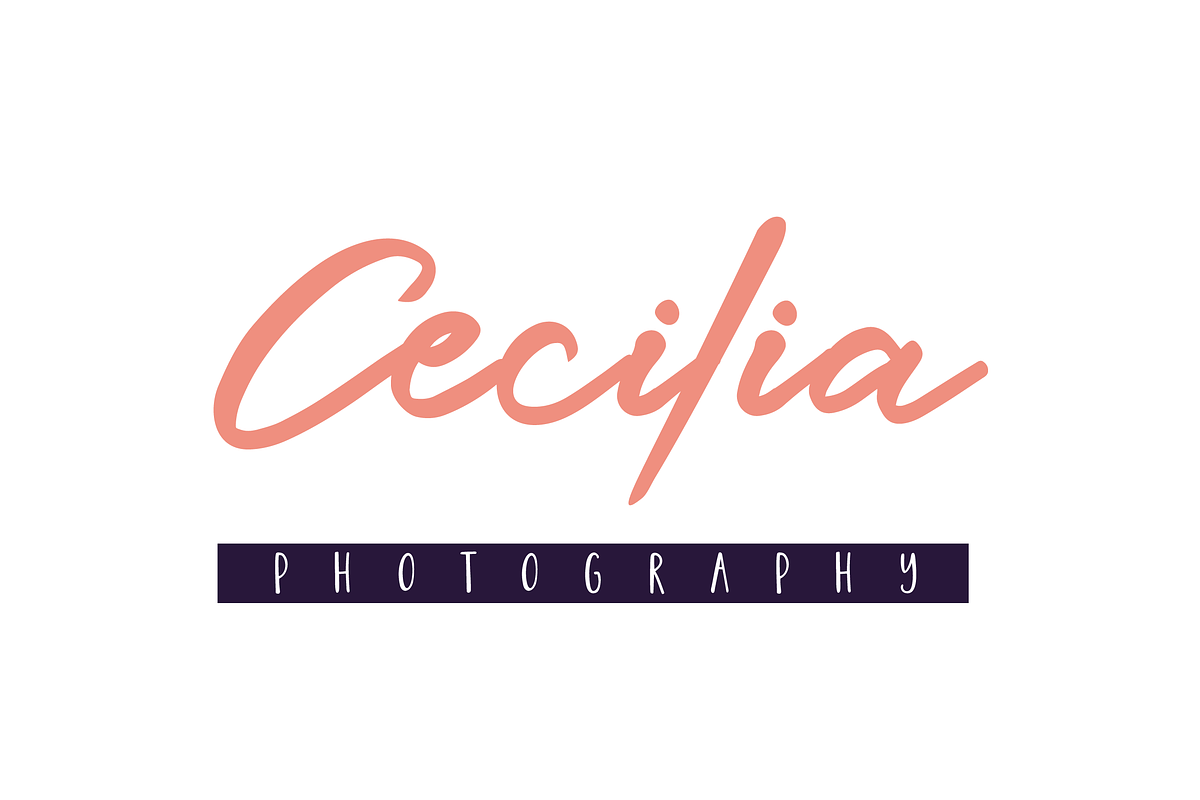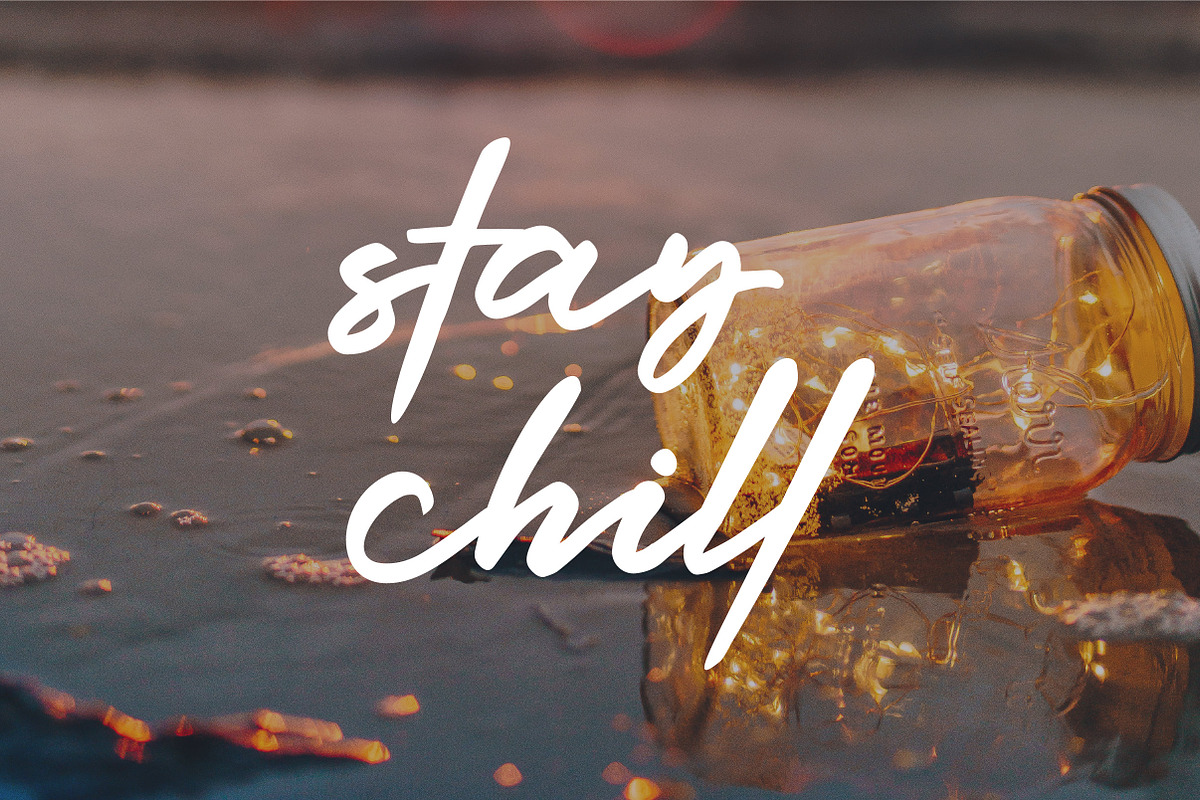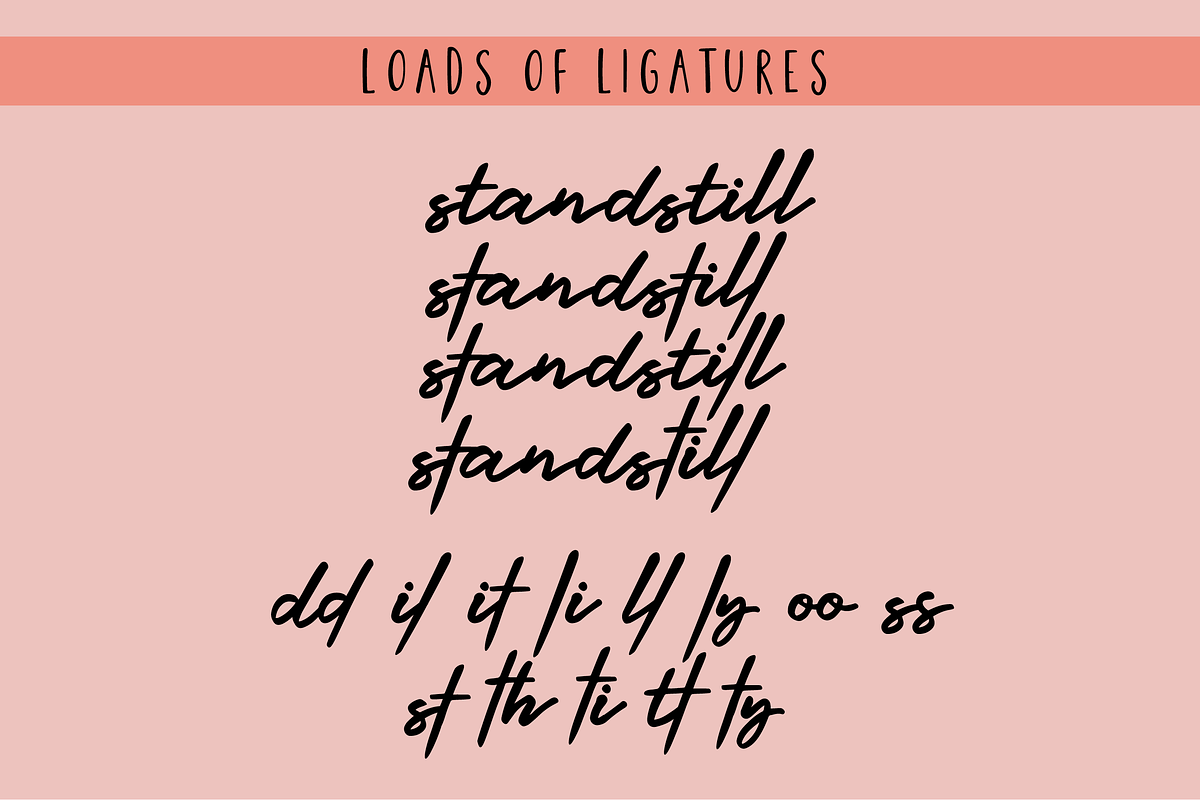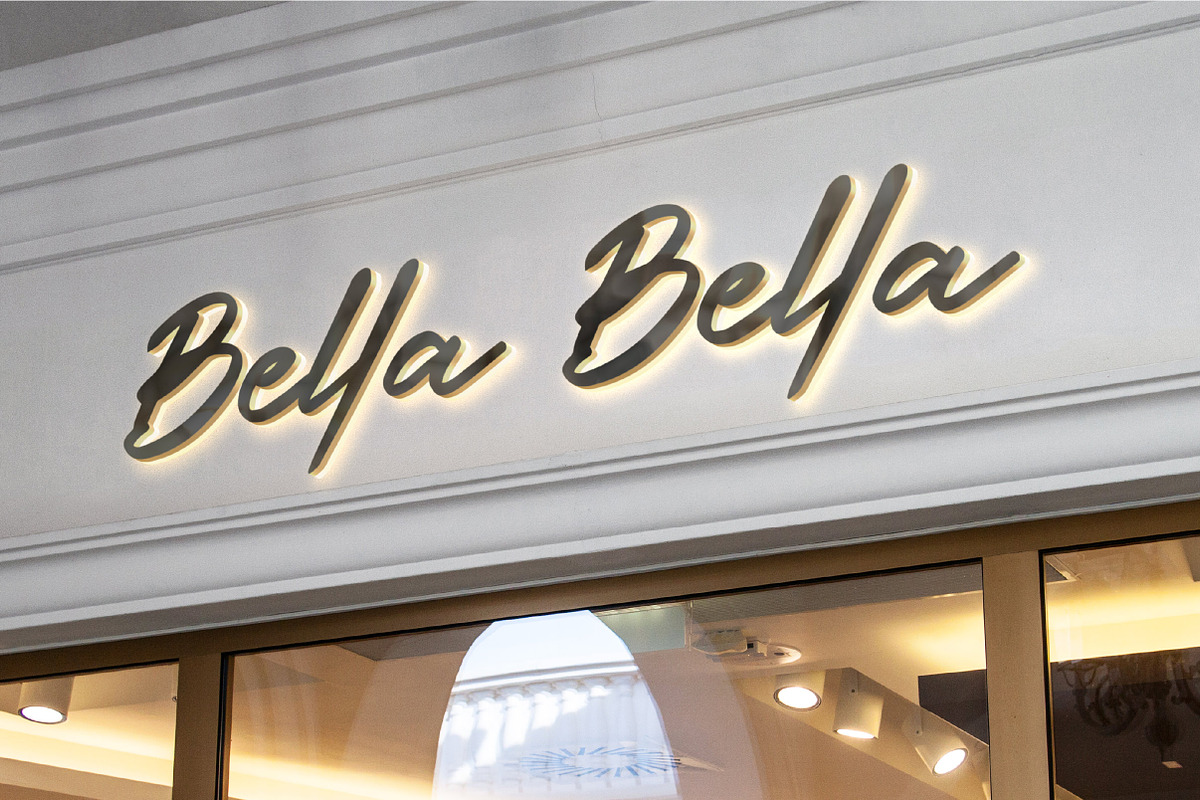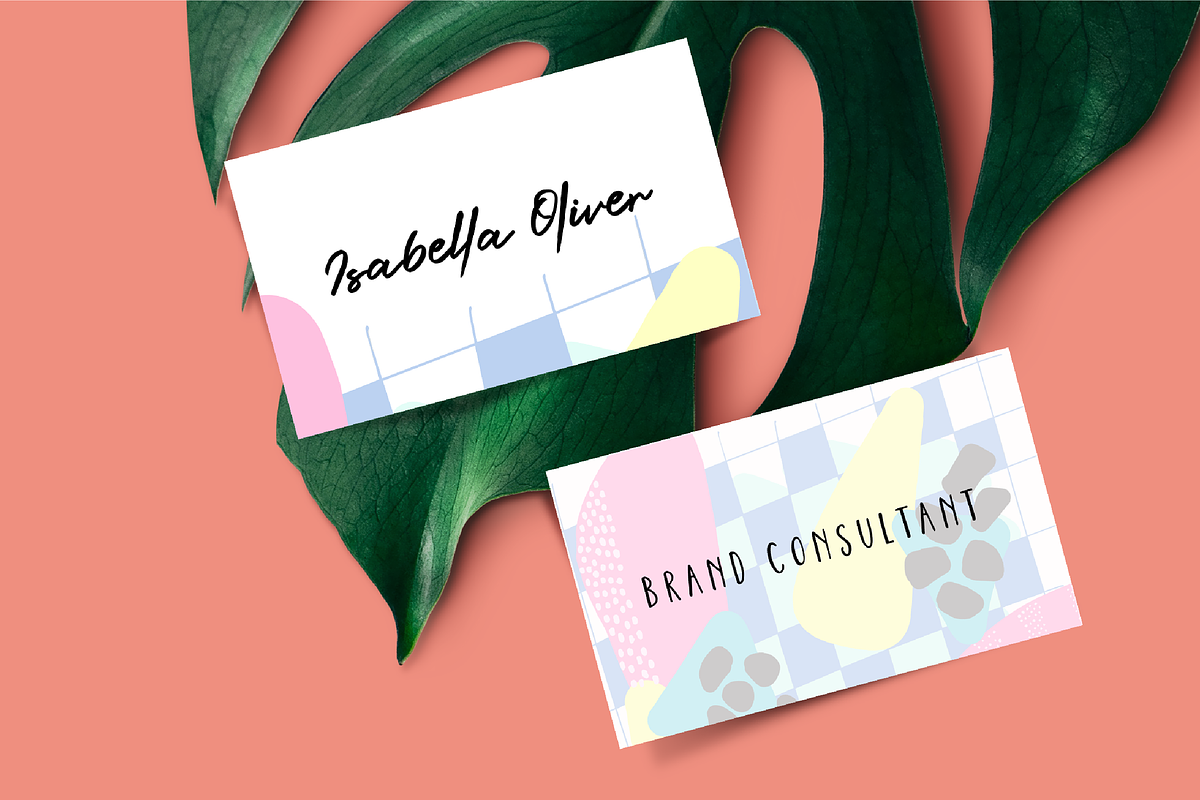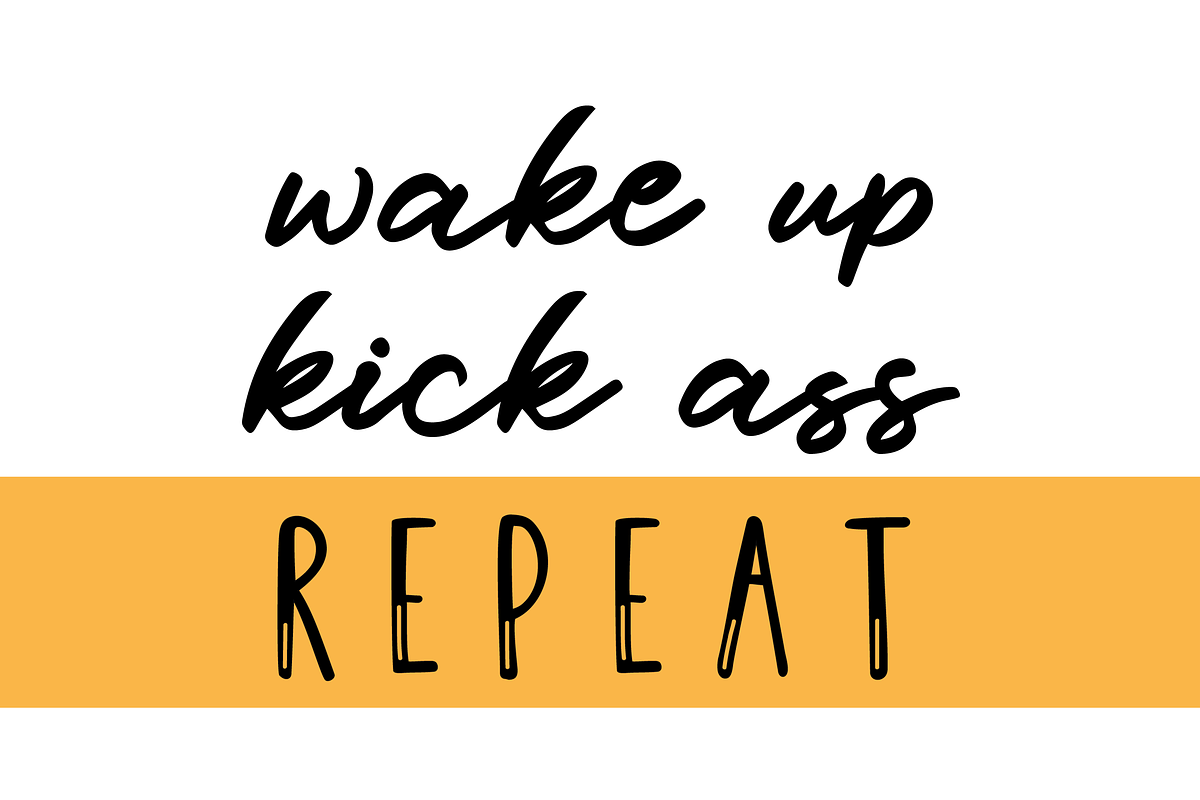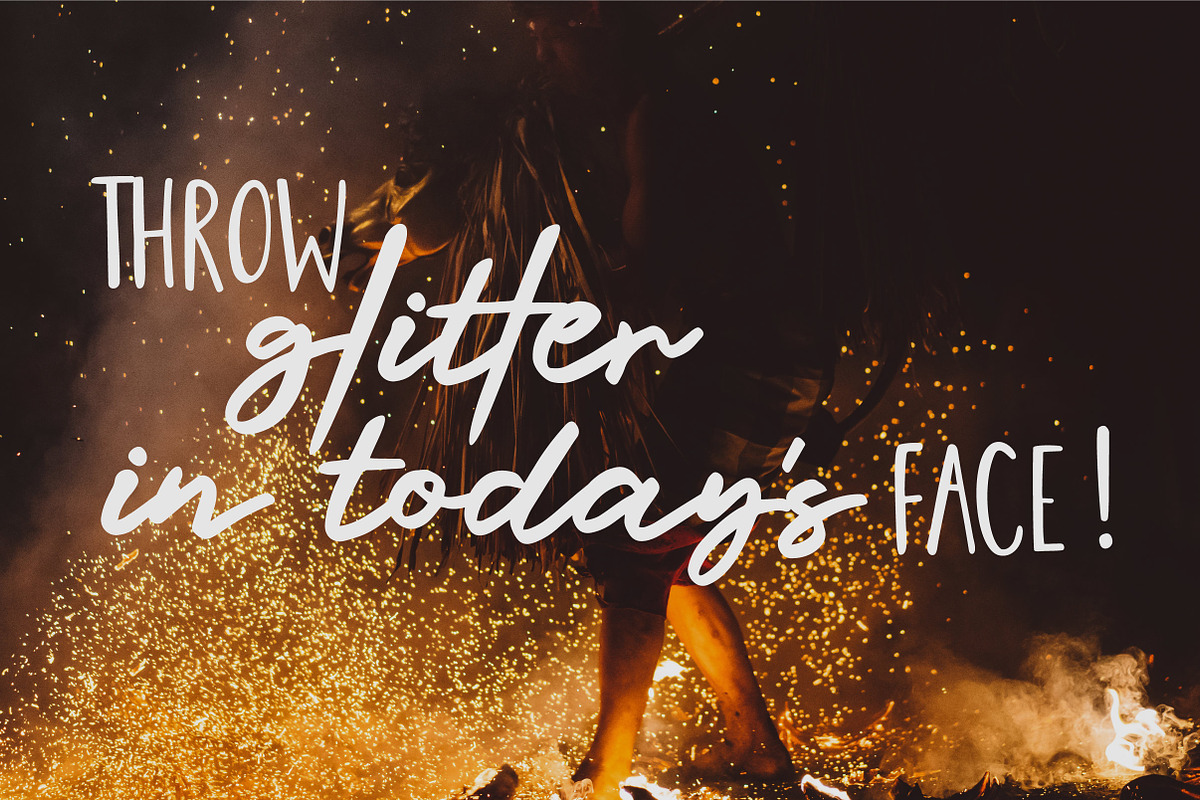
Glitter City Font Trio + Logos
Meet Glitter City a script + sans brush font trio that comes with a bunch of ligatures and allows you to create super fun, elegant and authentic hand made typography for all your design projects.
Glitter City can be used for everything from branding to signage to photo overlays to logos and so much more!
This font also comes with two sets of sans typeface to save you time in looking for the perfect pair.
Bonus: You also get 6 bonus logo templates!
- Glitter City Sans
- Glitter City Sans Alt